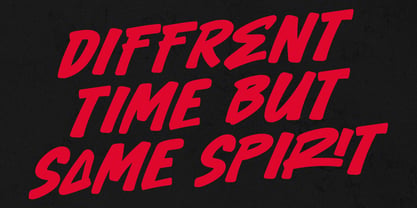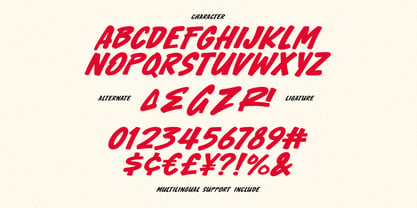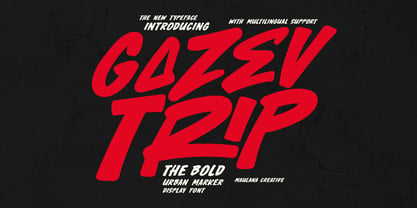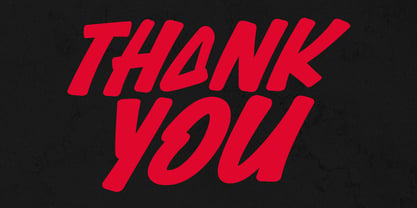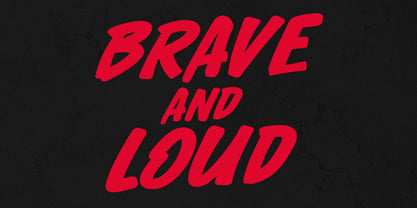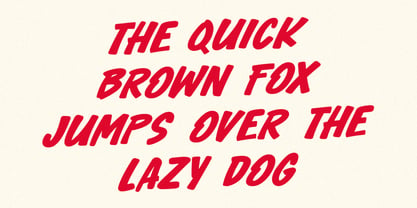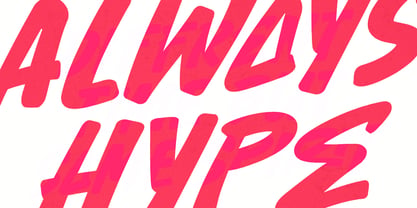
MC Gazev Trip
by Maulana Creative
The MC Gazev Trip Font Family was designed by Gilang Maulana and published by Maulana Creative. MC Gazev Trip contains 1 styles. More about this family
Gazev Trip is a high-energy, hand-drawn display font that captures the raw essence of street culture and urban art. Designed with thick, confident marker strokes and a natural slant, this typeface brings an aggressive yet rhythmic "hype" to any design. It features a full set of uppercase characters, numerals, and punctuation, along with unique alternates and ligatures to give your text a custom, hand-lettered look. Perfect for branding, sports, music festival, and any project that needs to look "Brave & Loud."
Designers: Gilang Maulana
Foundry: Maulana Creative